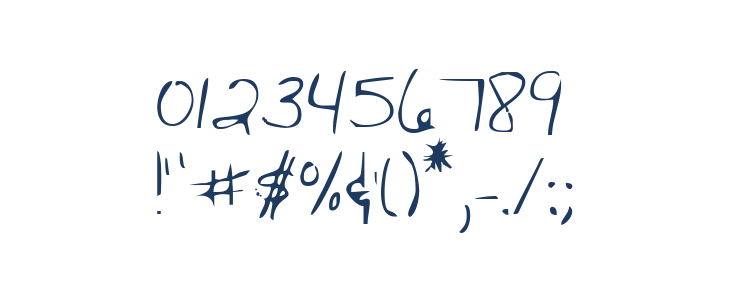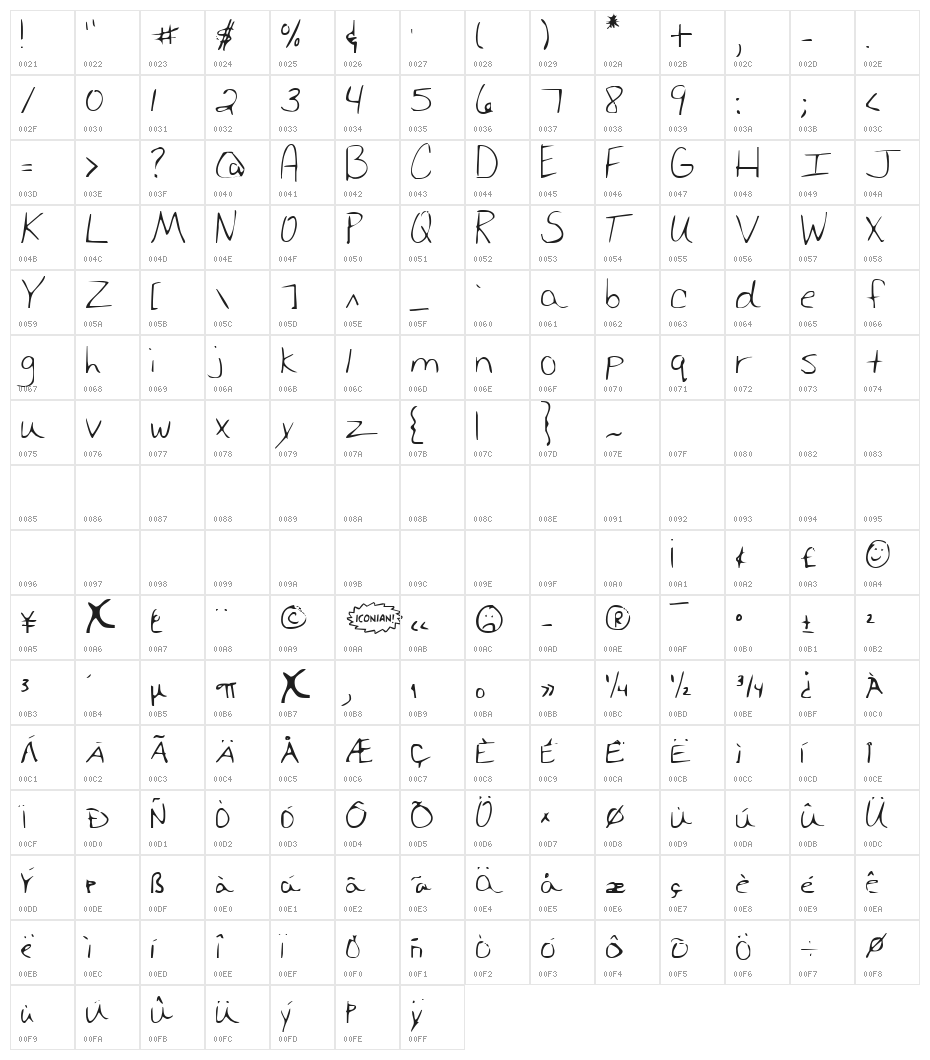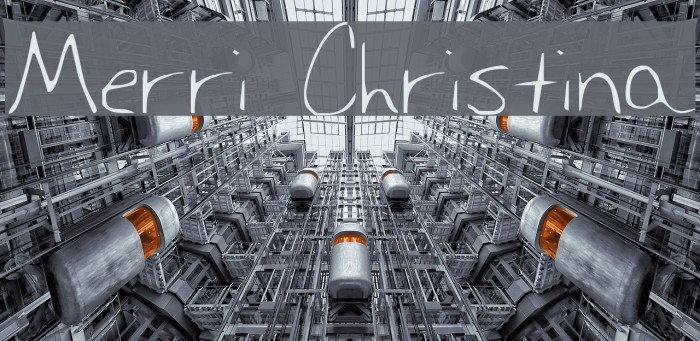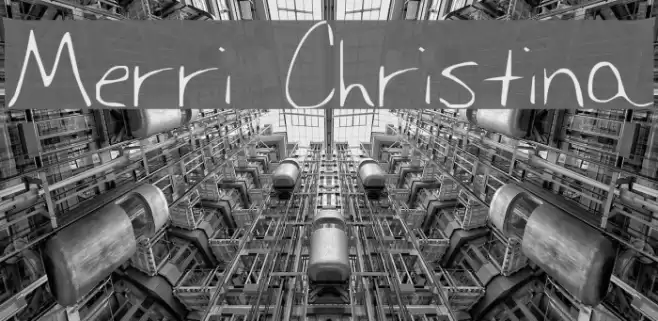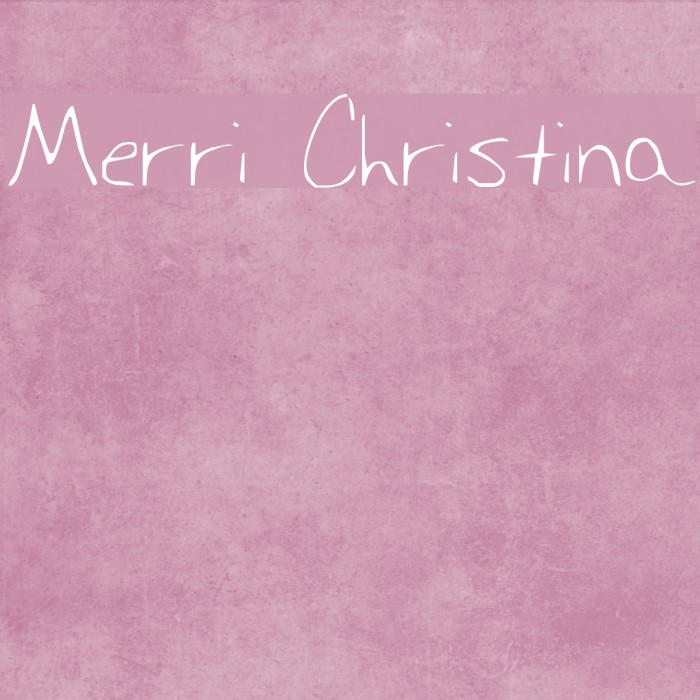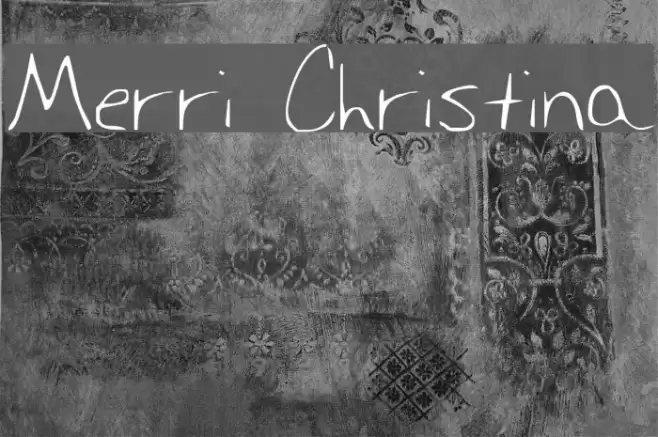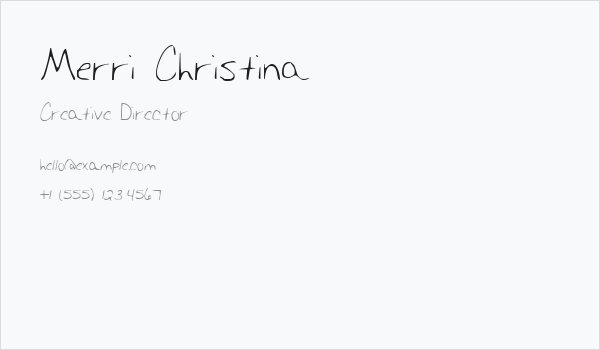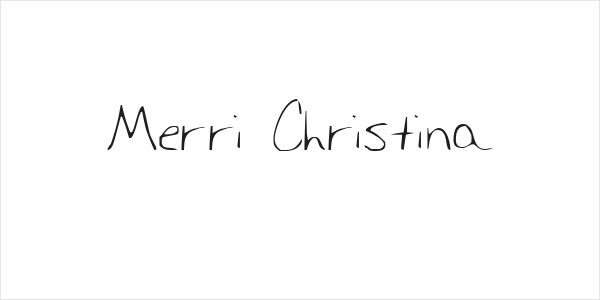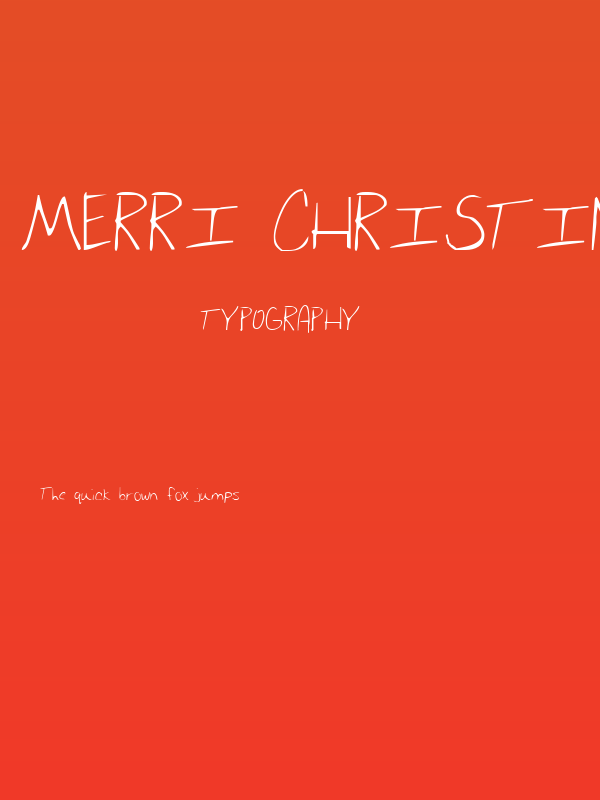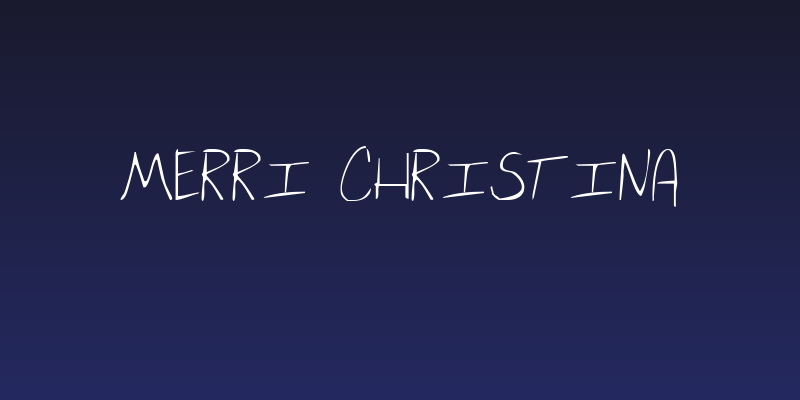
Merri Christina Font
Merri Christina Description
This font features a playful and casual handwritten style, characterized by its irregular strokes and organic flow. The uppercase letters are tall and slightly narrow, with a whimsical touch that adds personality. Lowercase letters maintain a consistent style, with rounded forms and varying stroke widths that mimic natural handwriting. Numbers and special characters follow the same playful aesthetic, ensuring a cohesive look across all text elements. The font's informal nature makes it ideal for projects that require a personal or creative touch.
Overall StyleCasual
Use CaseLogos, Headlines, Creative projects
Proposed ProjectsIdeal for greeting cards, personal invitations, children's books, and creative branding.